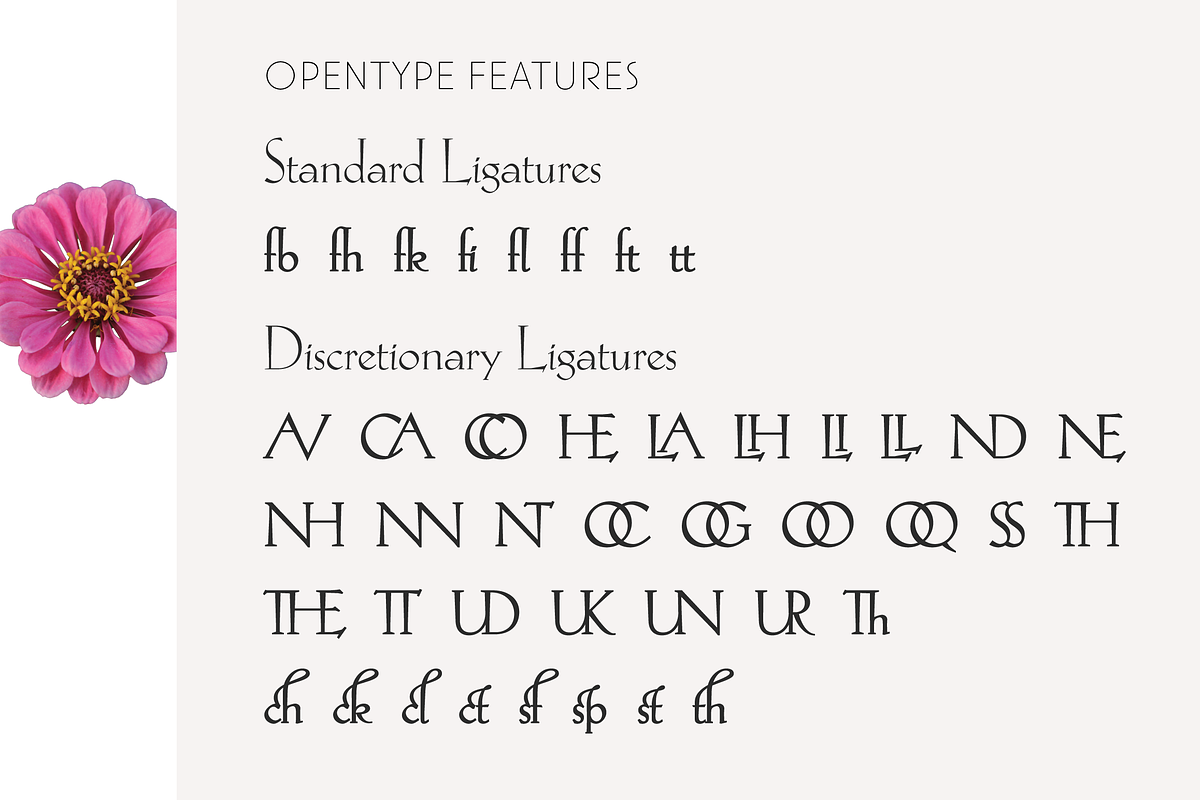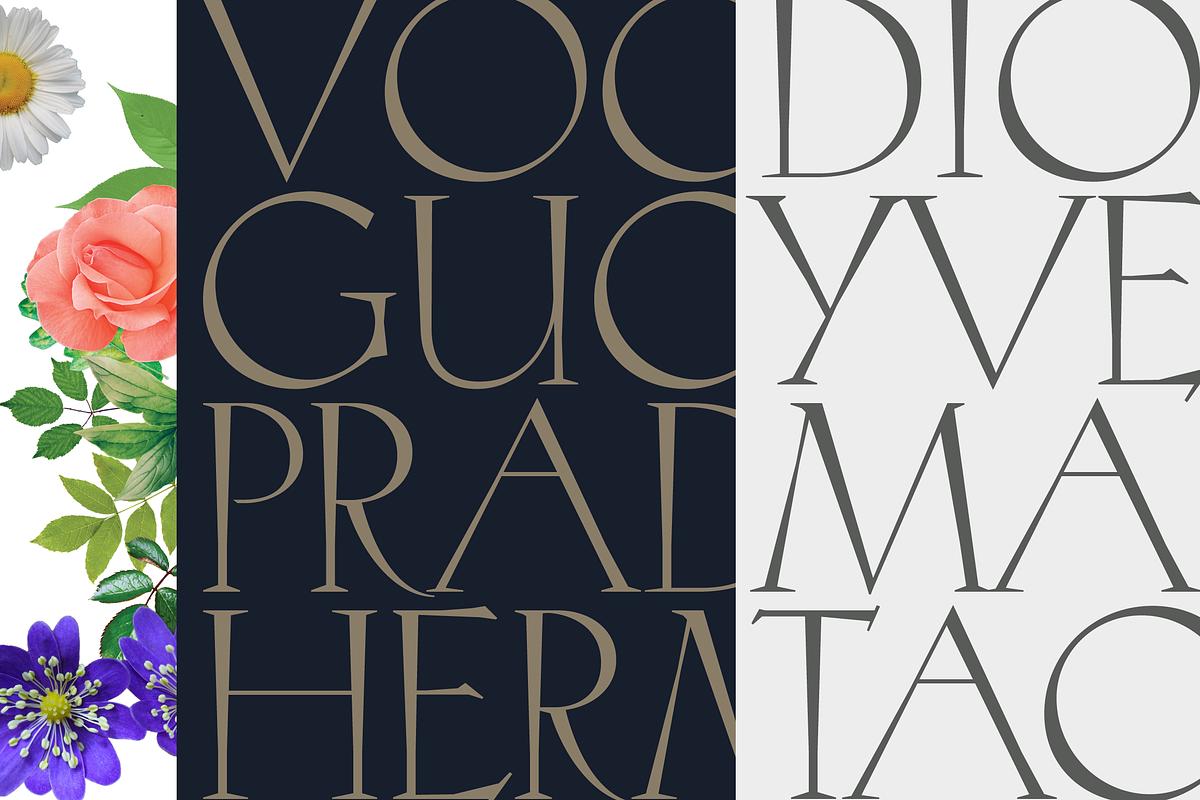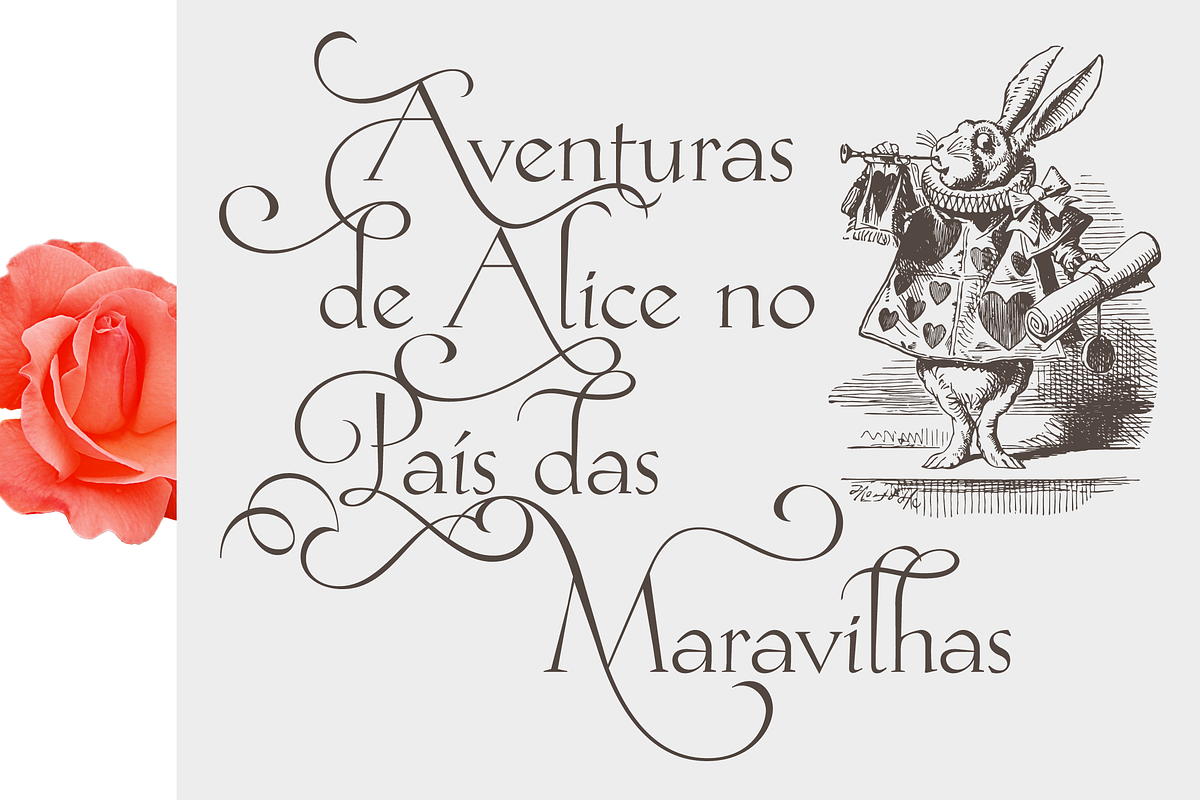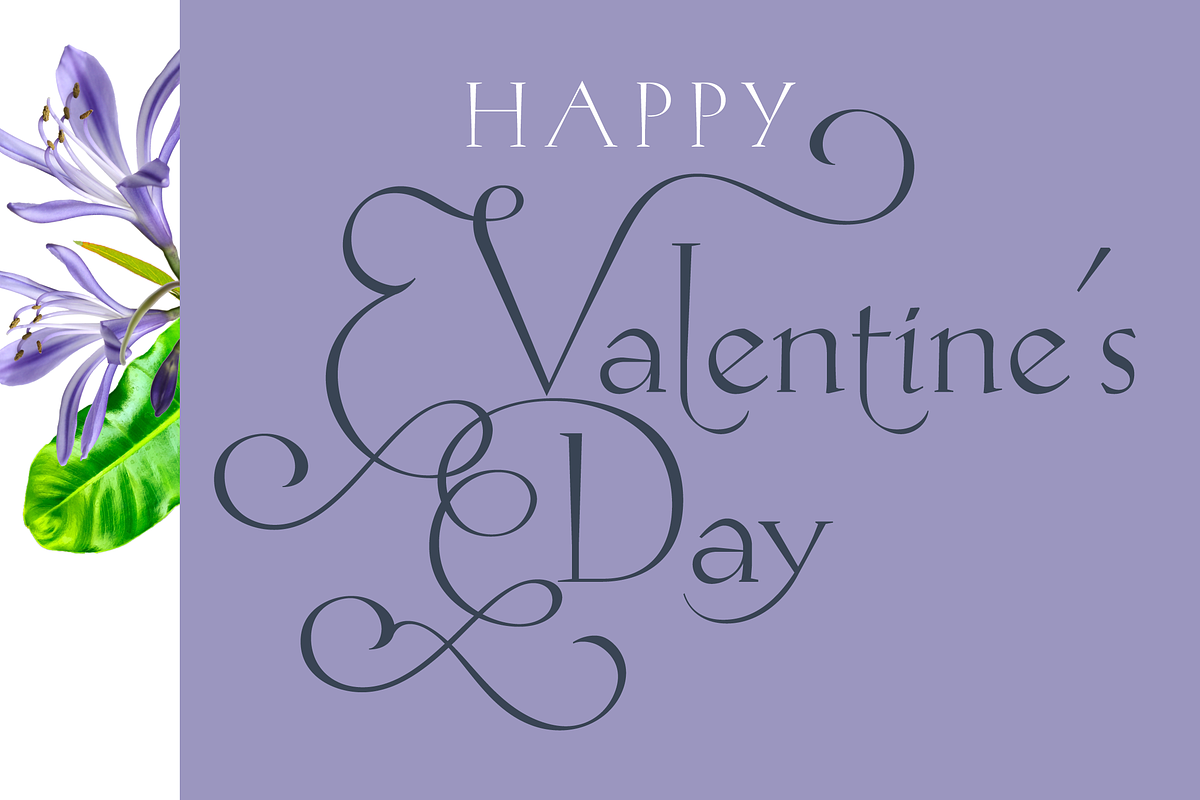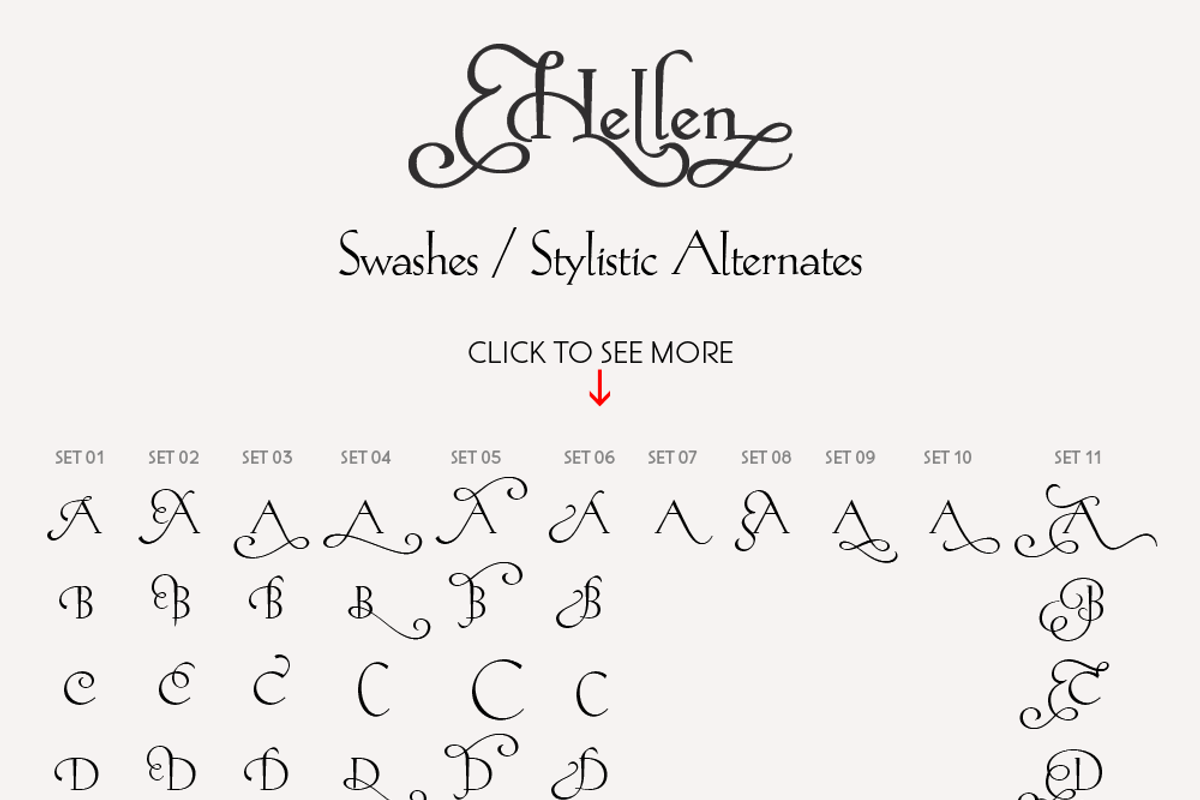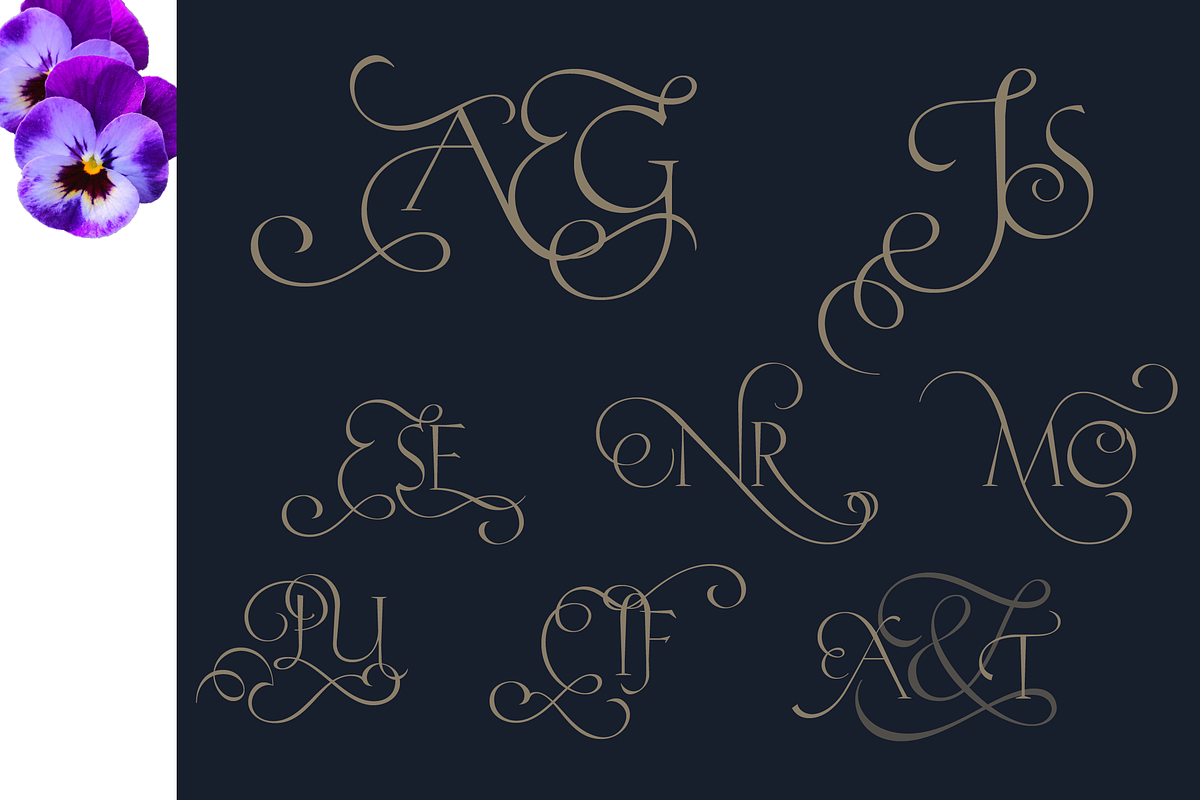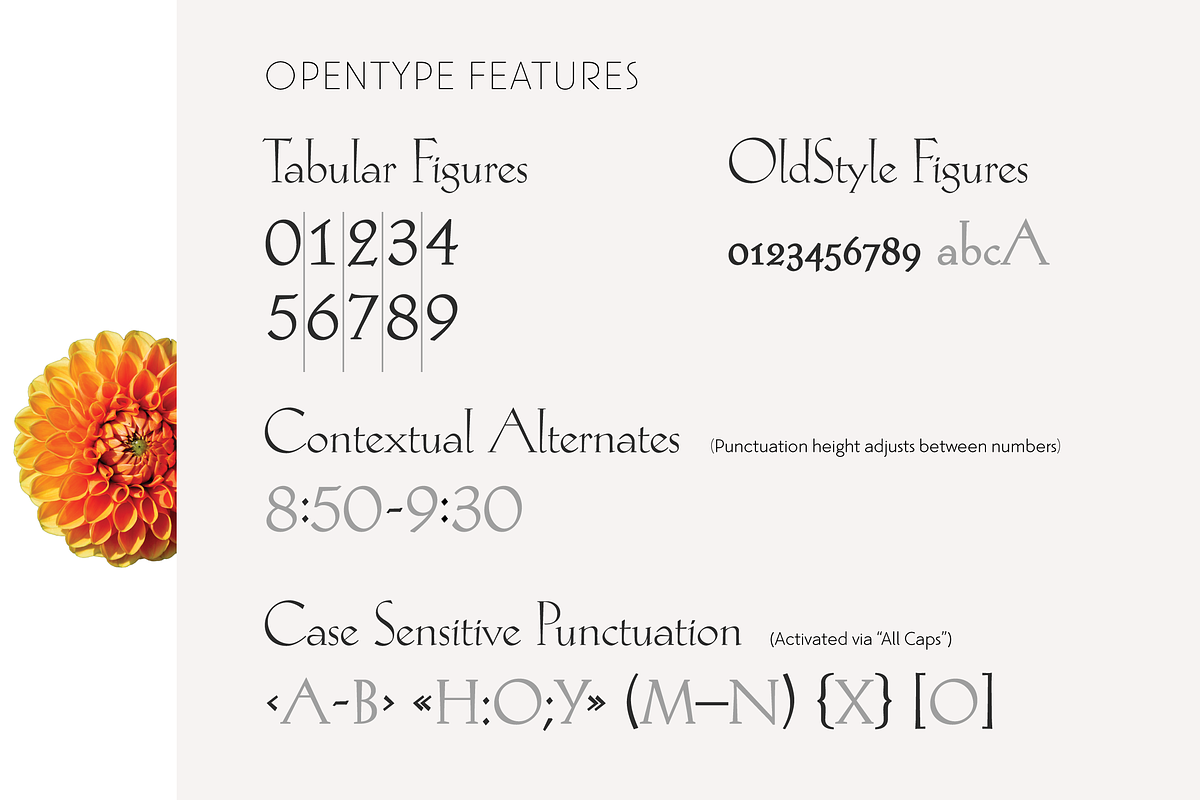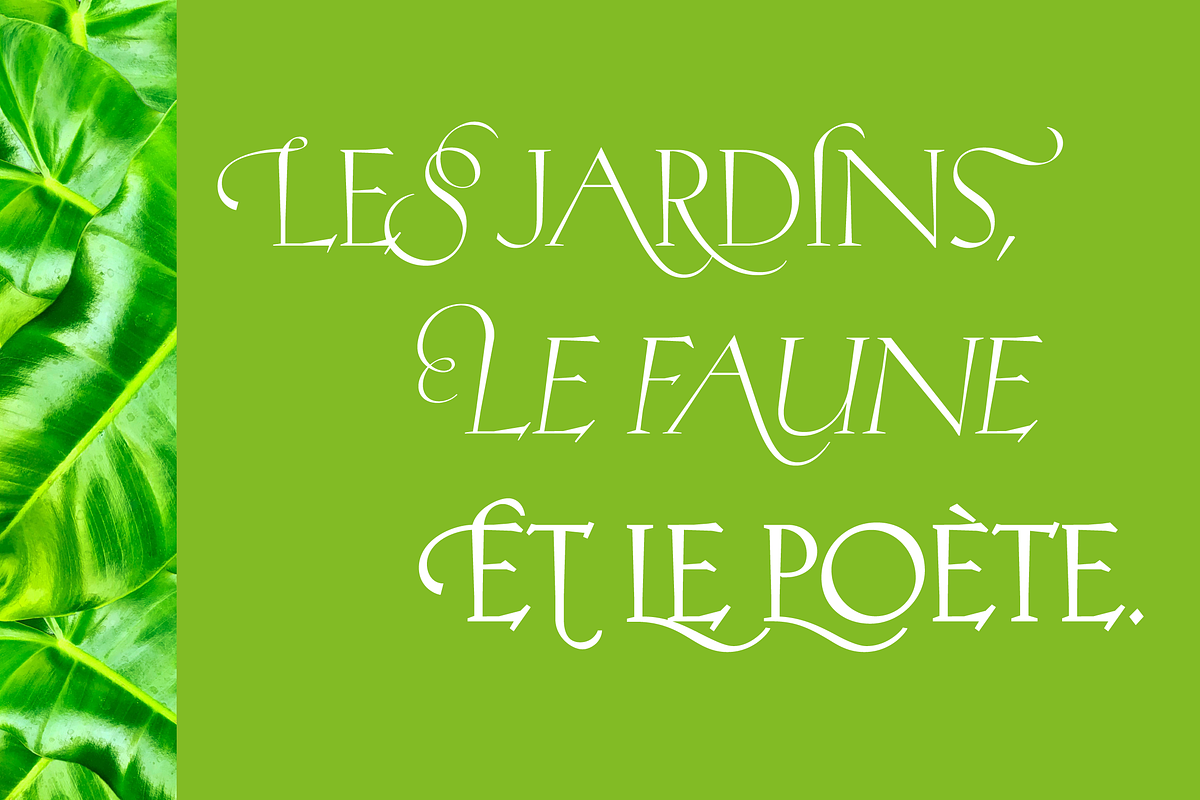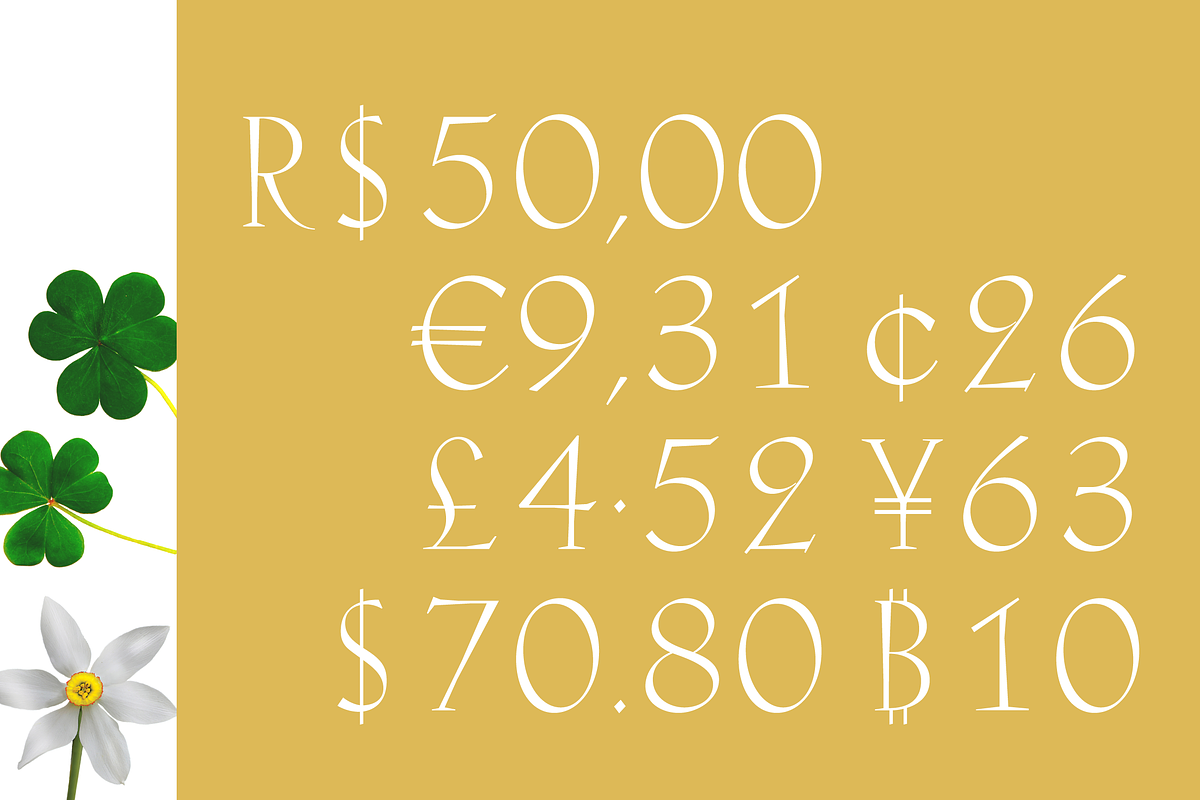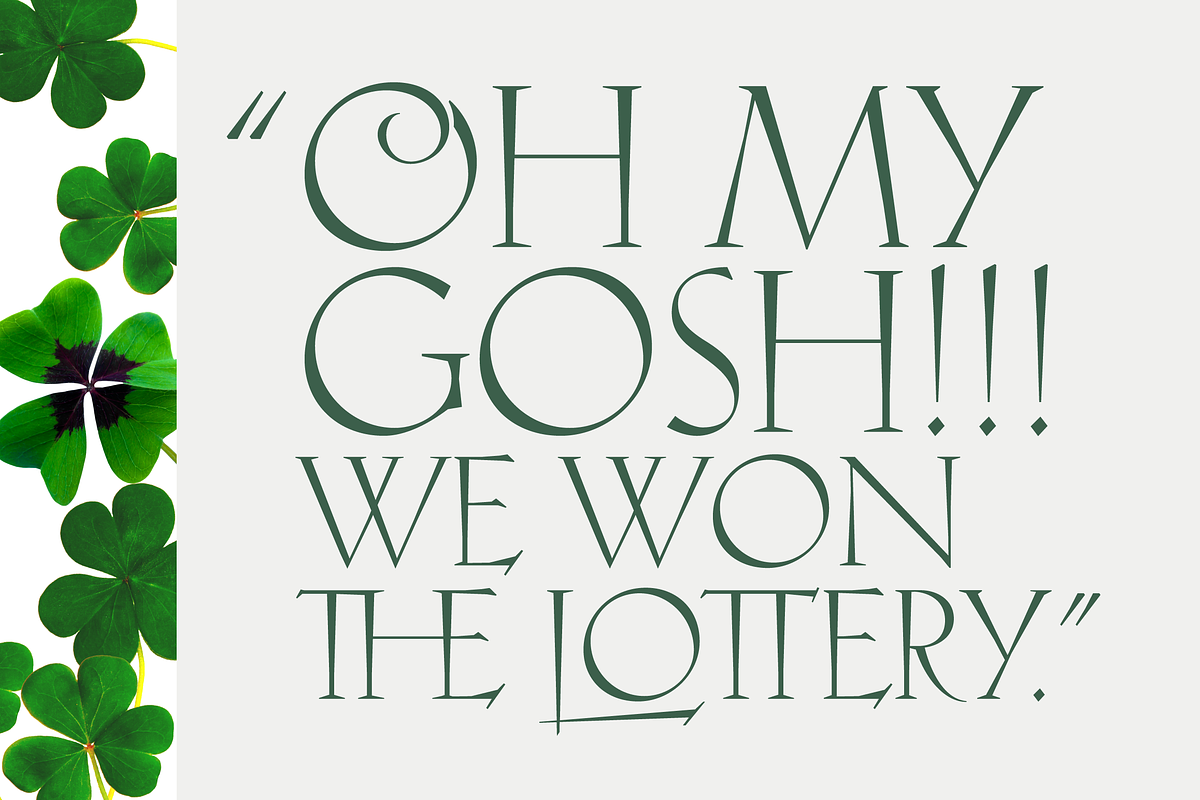
Hellen - Serif Font
Hellen is an elegant classic serif font based on the Koch Antiqua typeface, created in 1922 by the German designer Rudolf Koch. It's a delicate typeface with a low x-height, designed for decorative and display use.
This version includes Regular, Bold e Obliques styles. All contain multiple sets of alternates characters, swashes and ligatures.
Hellen offers a wide range of possibilities. Suitable for wedding invite, book covers, headlines, logotypes, posters, letterhead, greeting card, monograms and many more.
- Numerals (Tabular & Oldstyle figures)
- Stylistic Alternates & Swashes
- Punctuations (case sensitive), Symbols & Ornaments
- Ligatures (Standard & Discretionary)
- 700+ glyphs
- Localized characters (Catalan, Dutch, Turkish, Romanian)